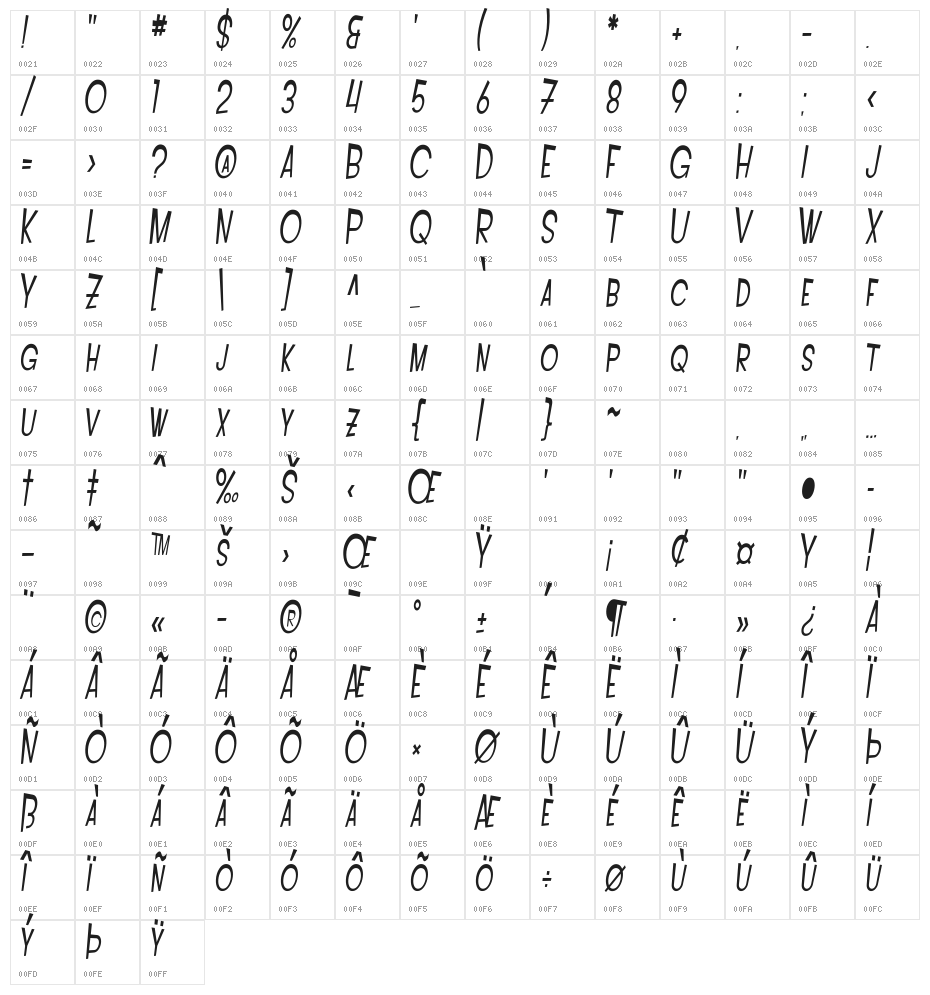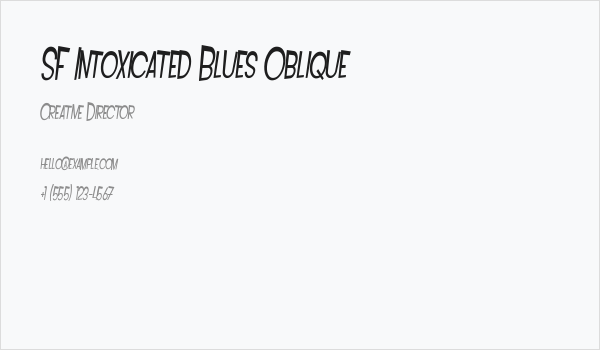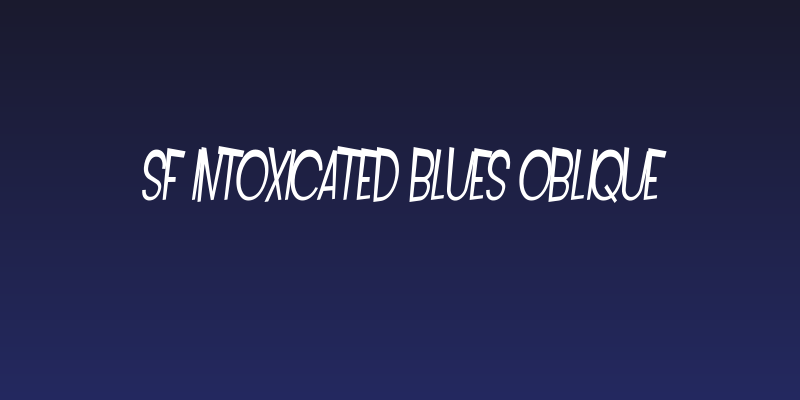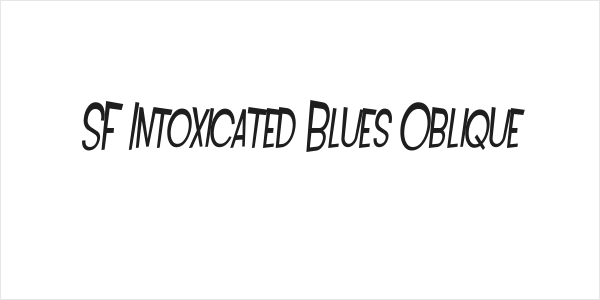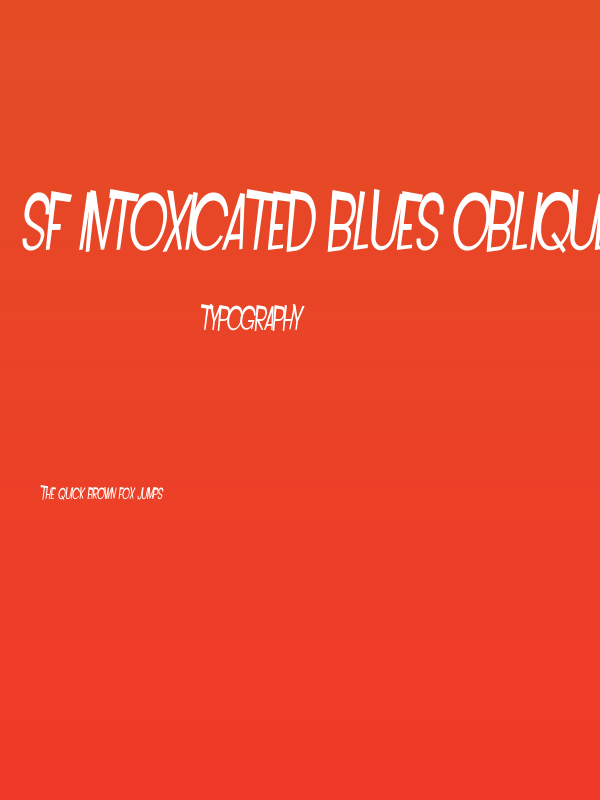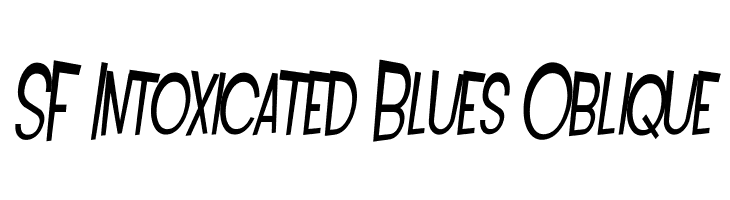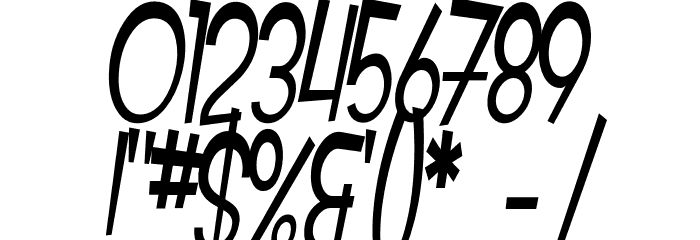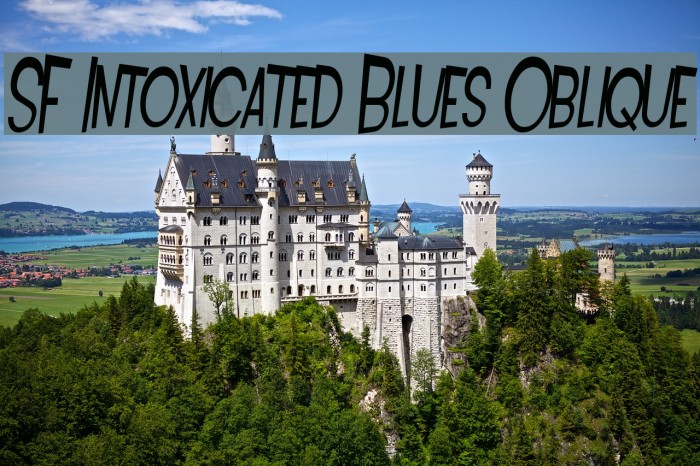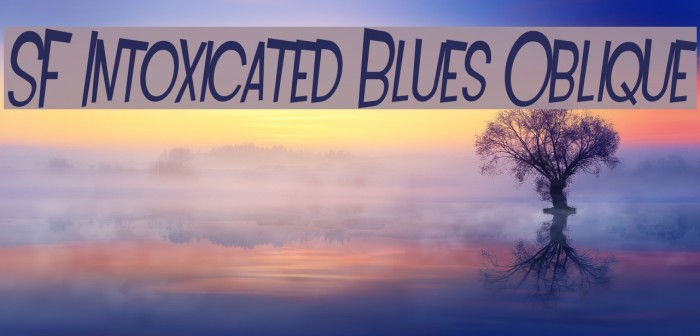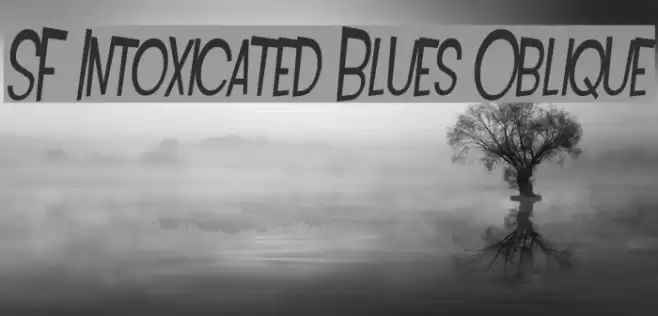
SF Intoxicated Blues Oblique Font
SF Intoxicated Blues Oblique Description
This font features a dynamic and energetic style with a pronounced oblique slant, giving it a sense of motion and urgency. The characters are bold and slightly condensed, with a modern and edgy appearance. The strokes are consistent in thickness, providing a uniform look across all characters. The uppercase and lowercase letters maintain a cohesive design, while the numerals and special characters complement the overall aesthetic. This font's unique style makes it stand out, ideal for projects that require a bold statement.
| Proposed Projects | Ideal for posters, album covers, branding, and any design needing a bold, energetic look. |